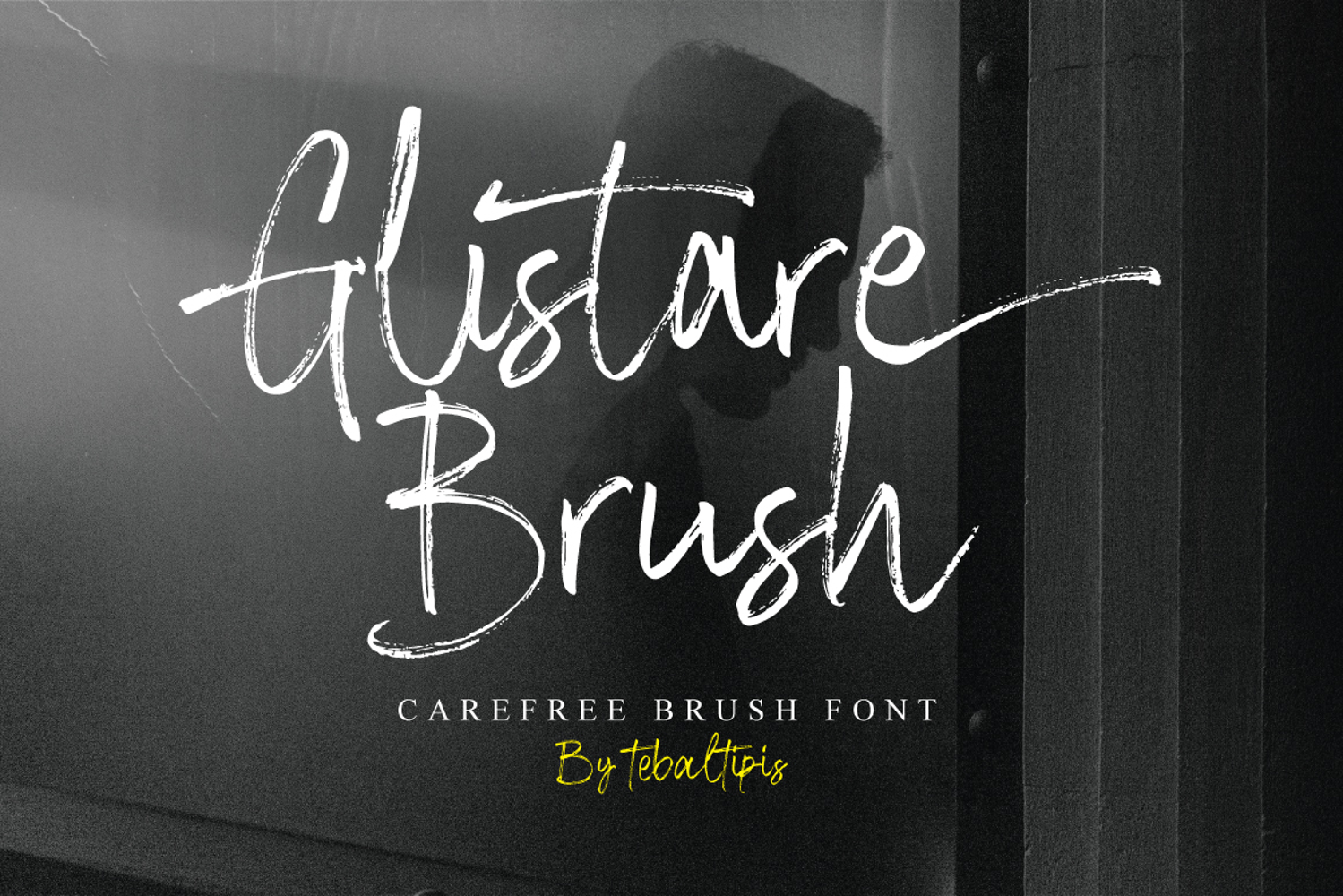
Glistare Brush
Rough/Brushed Texture: A “dirty” and textural effect, as if ink or paint has blended into the surface, enhancing the organic and warm feel.